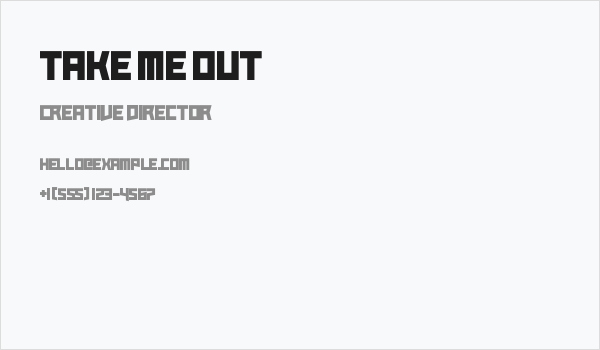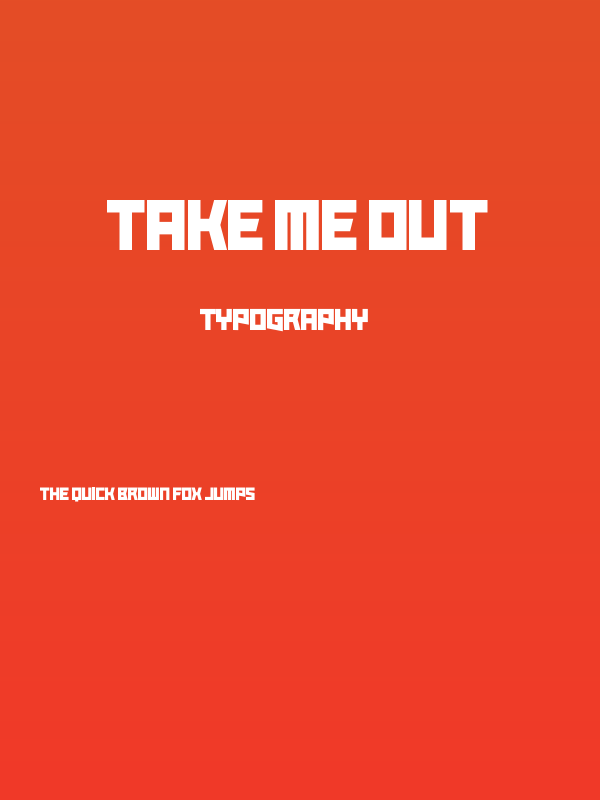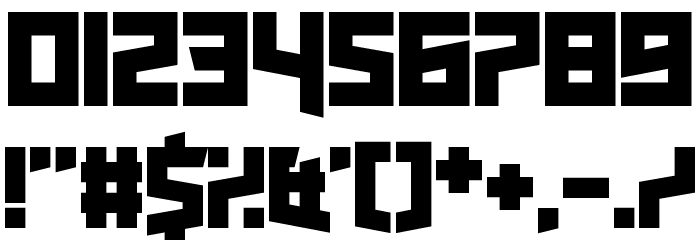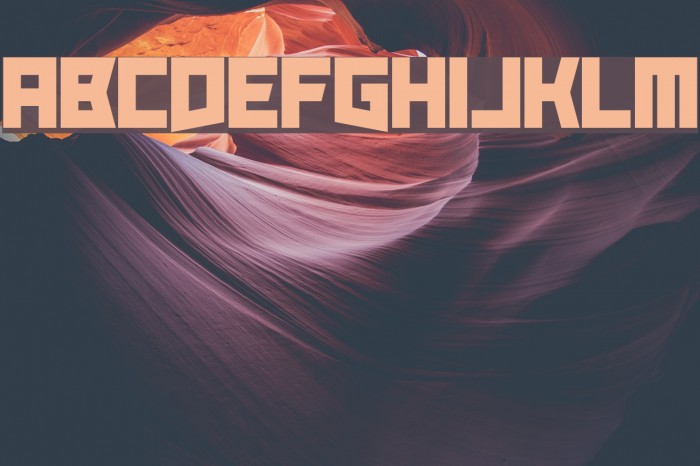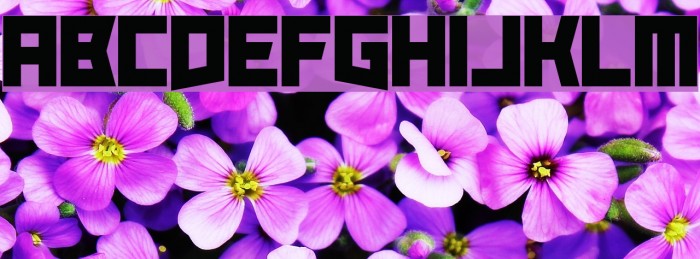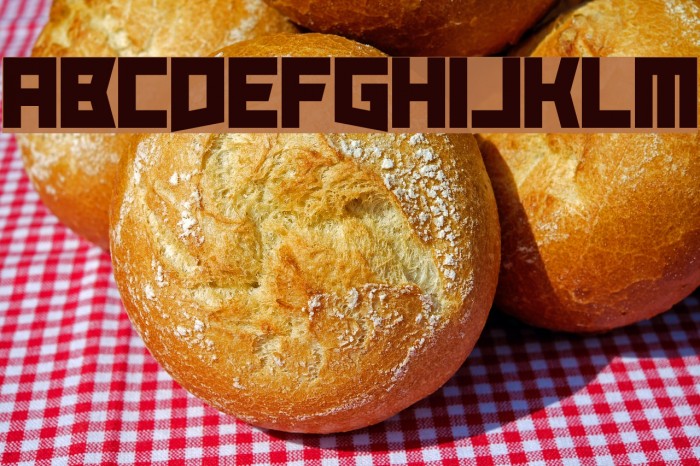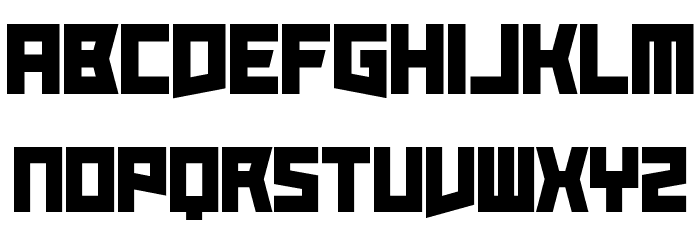
Take Me Out Font
Take Me Out Description
This font features a bold and geometric design, characterized by sharp angles and a blocky appearance. The uppercase letters are uniform in height and width, creating a strong and impactful visual presence. The lowercase letters maintain the same boldness, ensuring consistency throughout the typeface. Numbers and special characters are designed with the same angular style, making them easily recognizable and cohesive with the overall aesthetic. This font's distinct and modern look makes it ideal for projects that require a strong visual statement.
| Proposed Projects | Ideal for posters, logos, video game graphics, and branding materials that require a strong, modern aesthetic. |